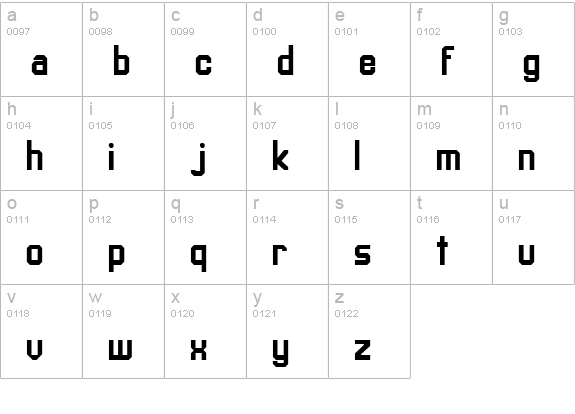
Upsilon Regular is the standard, neutral variant in the Upsilon typeface family \xE2\x80\x94 well suited to general body text, paragraphs, and standard typographic work.
Upsilon Regular font is a versatile and elegant typeface that is perfect for both print and digital designs. With its clean lines and balanced proportions, it brings a touch of sophistication to any project. Whether you are designing a logo, creating a brochure, or crafting a website, Upsilon Regular font is sure to make a lasting impression. What makes Upsilon Regular font even more appealing is that it is free. Yes, you read that right! This stunning font is freely available to download at FontsMarket.com. You can easily access this font and add it to your collection without breaking the bank. The designers behind Upsilon Regular font have carefully crafted every letter and character, ensuring a seamless and professional look. The font offers a wide range of weights and styles, providing you with endless possibilities to create captivating and eye-catching designs. Upsilon Regular font is highly legible, making it suitable for both body text and headlines. Its clean and modern aesthetic ensures that your message is conveyed with clarity and style. Whether you're designing for a corporate brand, a fashion label, or a wedding invitation, Upsilon Regular font is a reliable choice that will elevate your design to the next level. With its generous x-height and well-defined letterforms, Upsilon Regular font excels in readability even at small sizes. It is the perfect choice for projects that require attention to detail and precision. The font's versatility allows it to seamlessly adapt to different design styles and themes, from minimalistic and modern to classic and vintage. So why wait? Unlock your creativity and elevate your designs with Upsilon Regular font. Download it for free today at FontsMarket.com and explore the endless possibilities that this remarkable typeface has to offer.